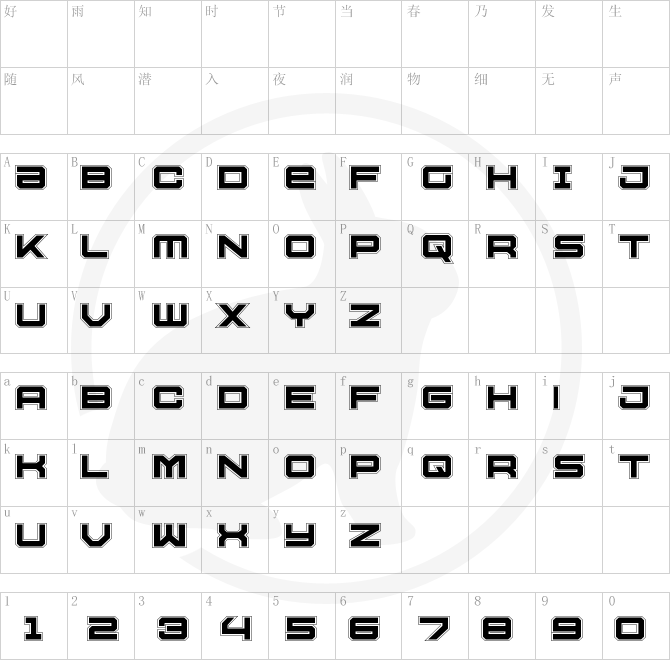
- Font Name:U.S.S. Dallas Academy
U_S_S_Dallas-Academy.ttf is a very beautiful artistic font, U_S_S_Dallas-Academy.ttf is widely used in the design and printing of various books and pictures,U_S_S_Dallas-Academy.ttf has a strong visual impact,U_S_S_Dallas-Academy.ttf is a commonly used font in newspapers, magazines and books, and is used in posters, e-commerce Poster design, store design, logo design, font design and other fields.U_S_S_Dallas-Academy.